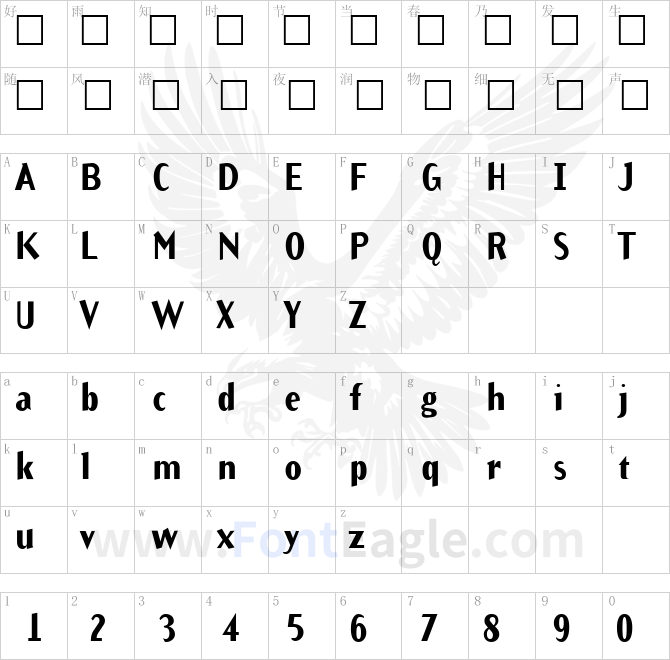
- Font name:ArbitraryBold
- Font Subfamily ID:Altsys Fontographer 3.5 ArbitraryBold Bold
- Font Full Name:ArbitraryBold Bold
- Font Version:Altsys Fontographer 3.5 2/22/93
- Postscript:ArbitraryBold
- Font Copyright:Copyright (c) 1992 Emigre Graphics